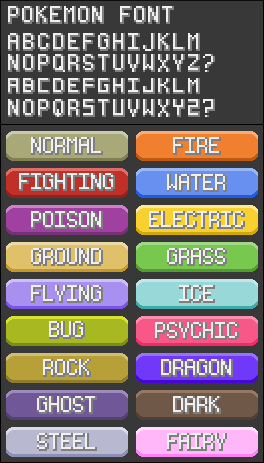
Just a little something I made because the original Pokemon font was inconsistent with it's sizes so I made it bigger and each letter the same size. To accommodate this I made bigger type boxes for them.I honestly don't care if you use this anywhere as long as you link back to this.